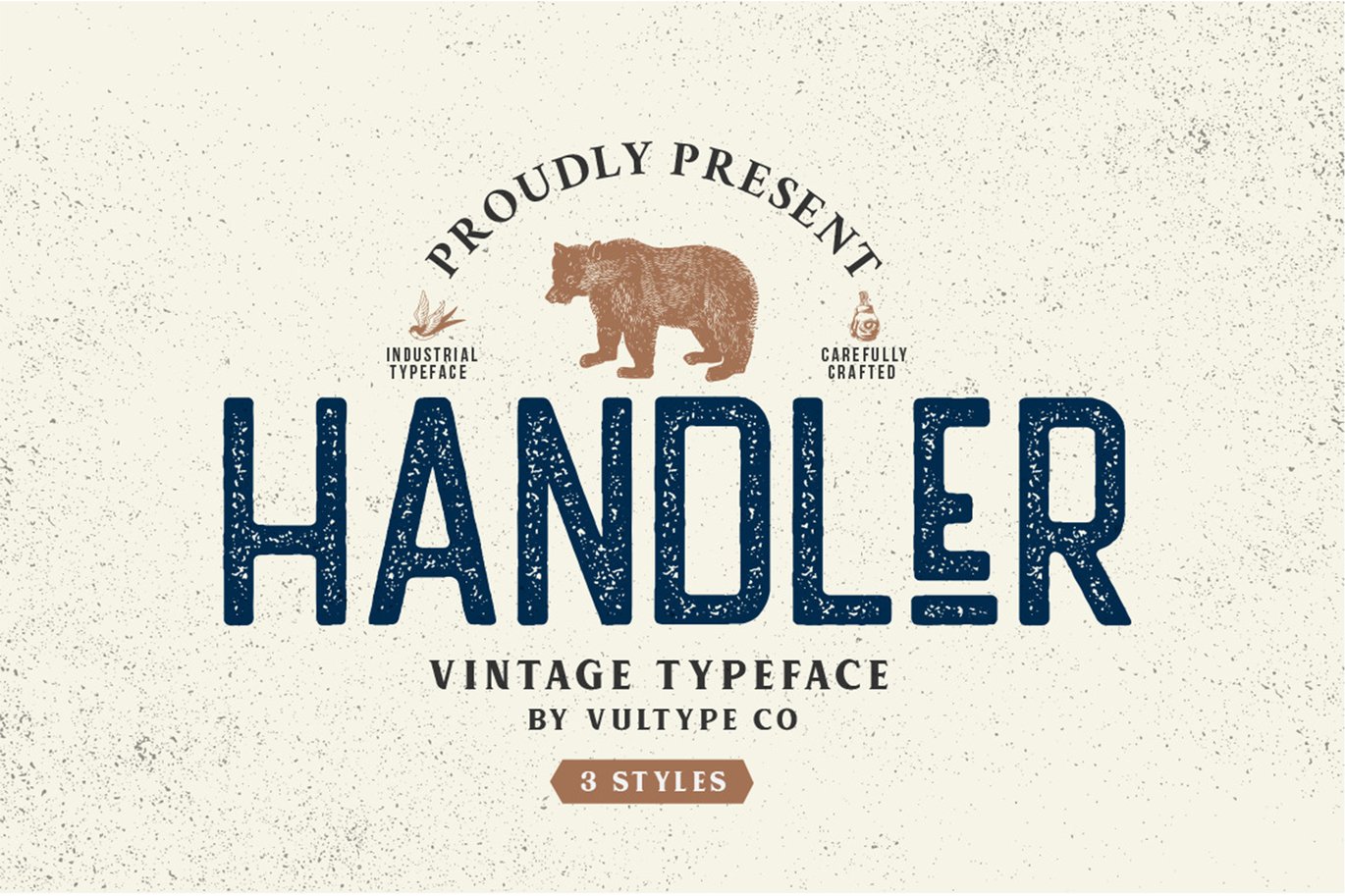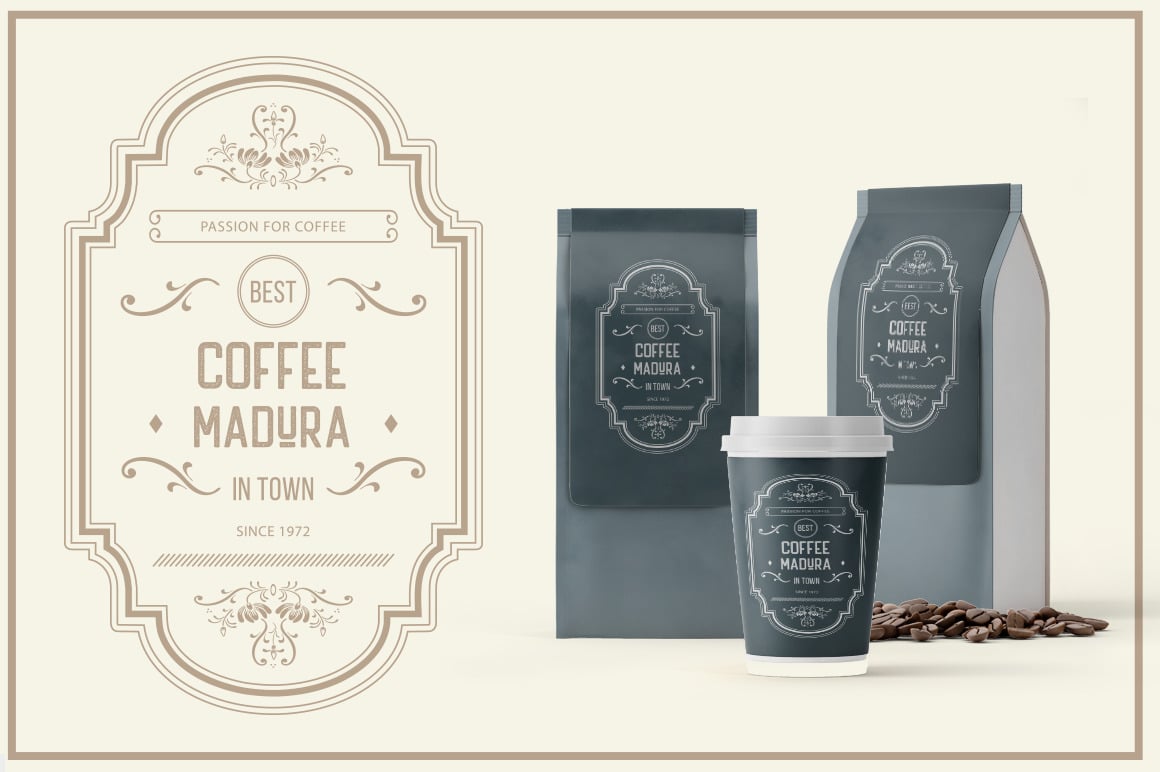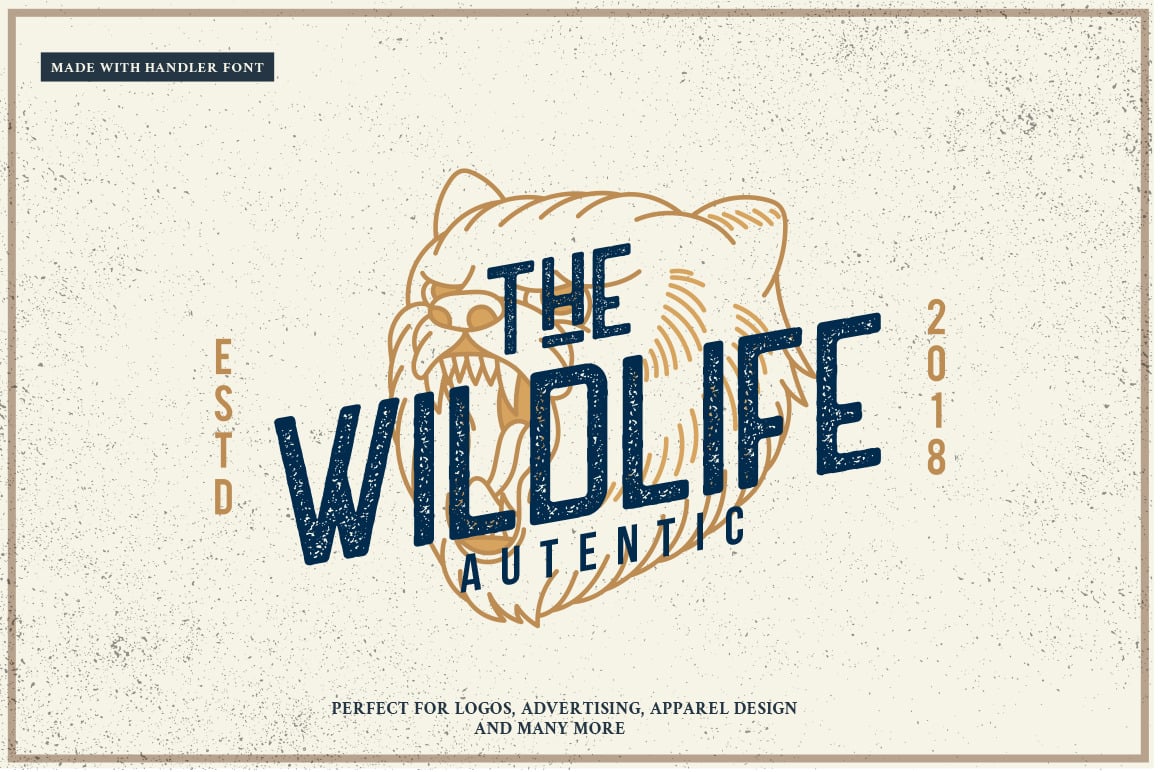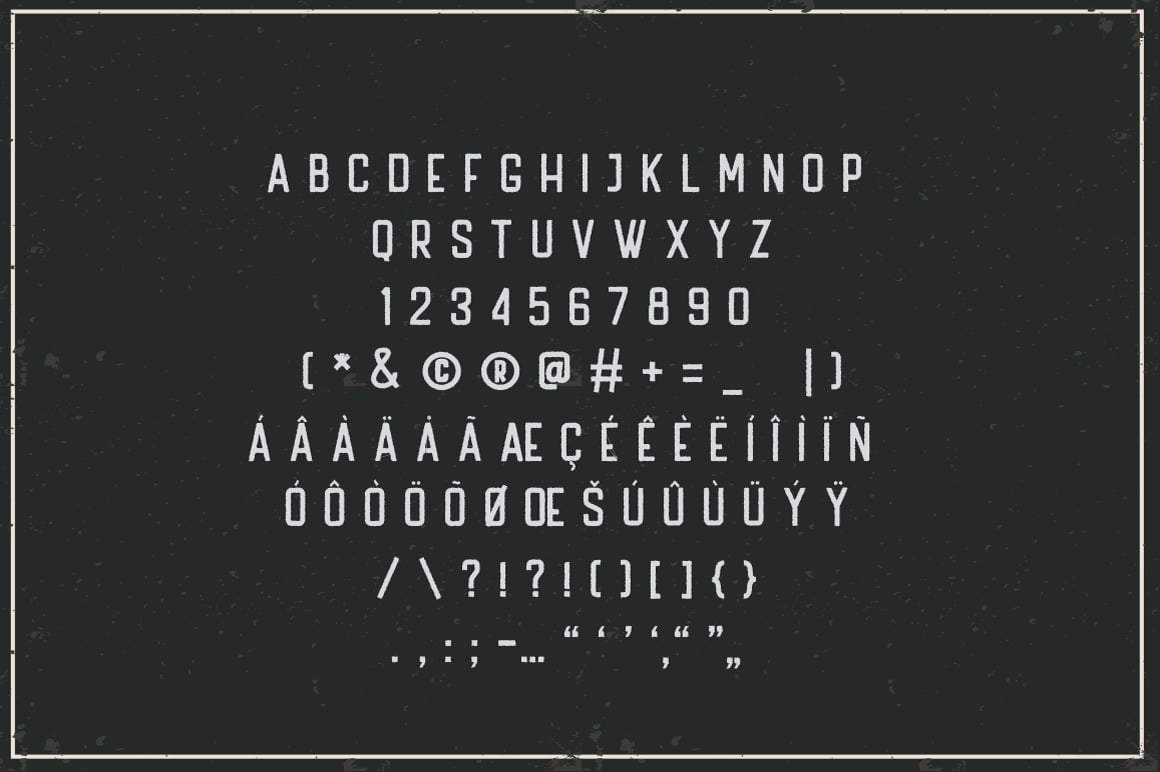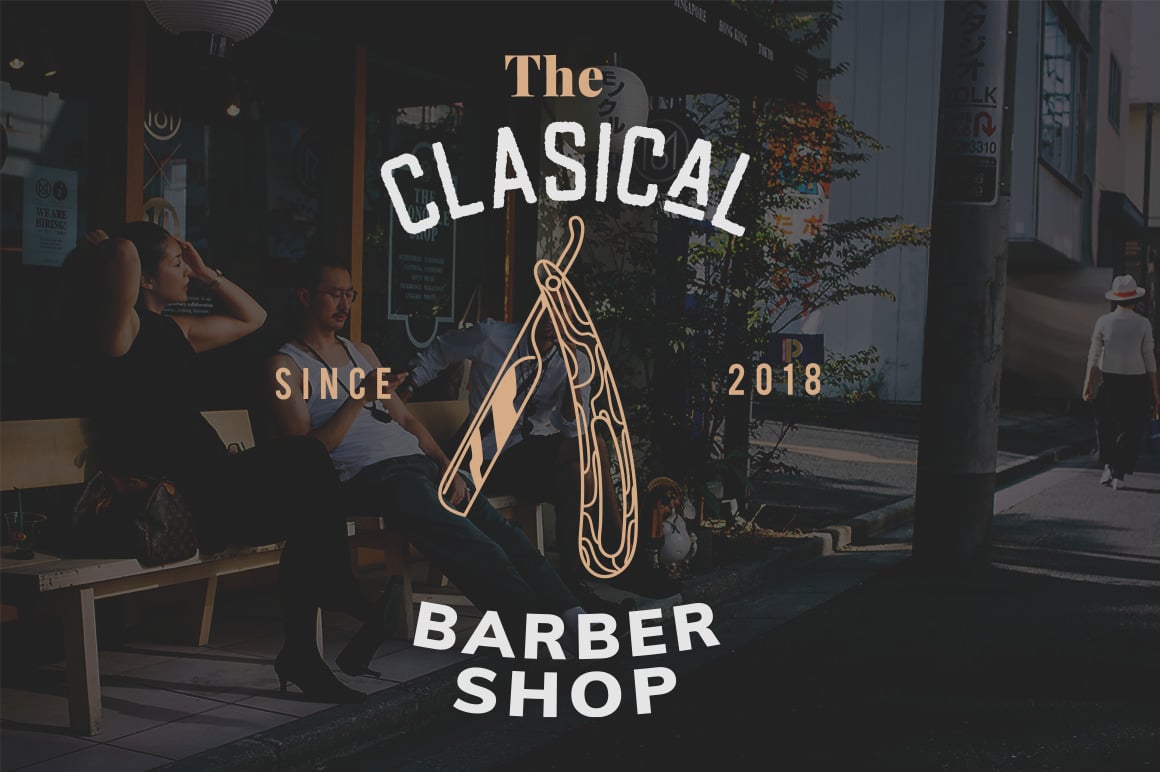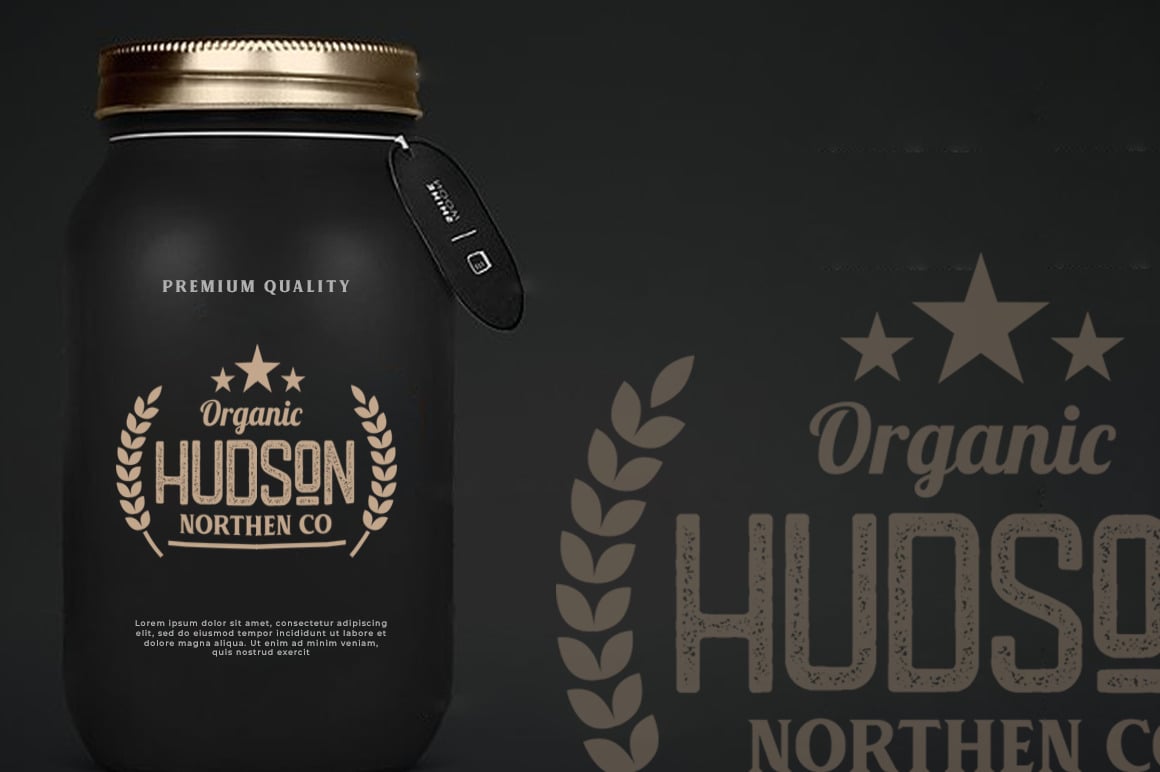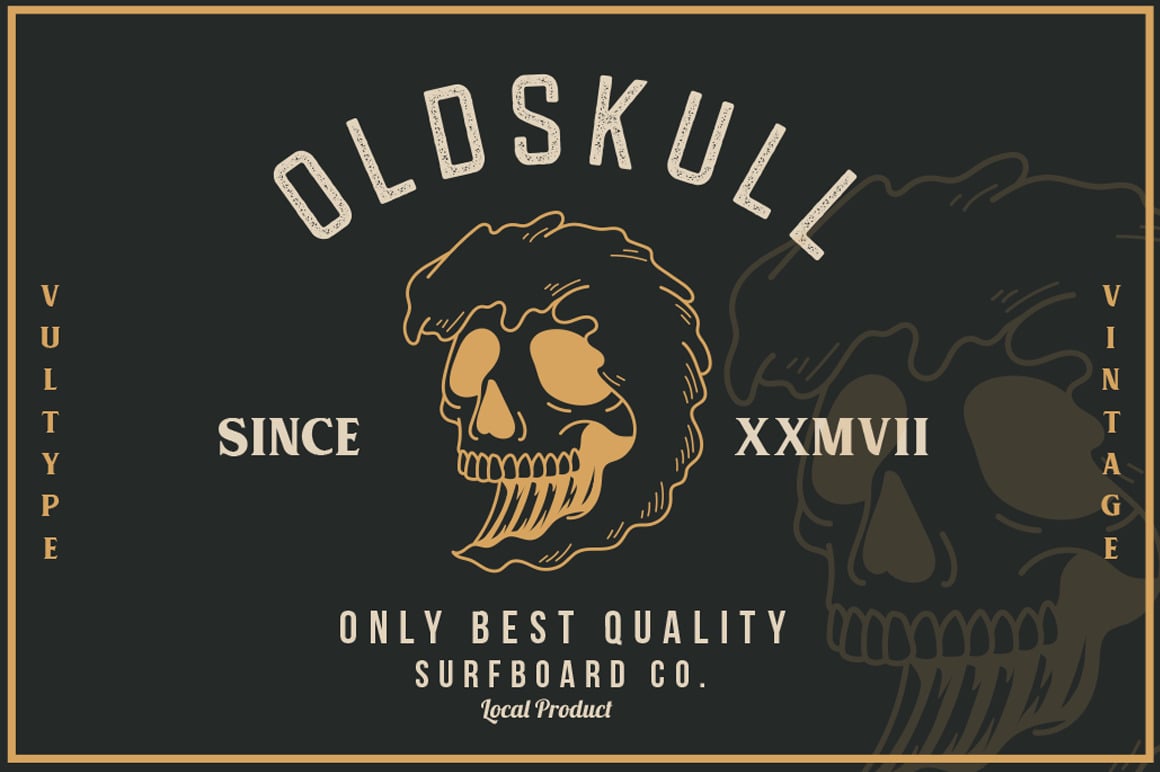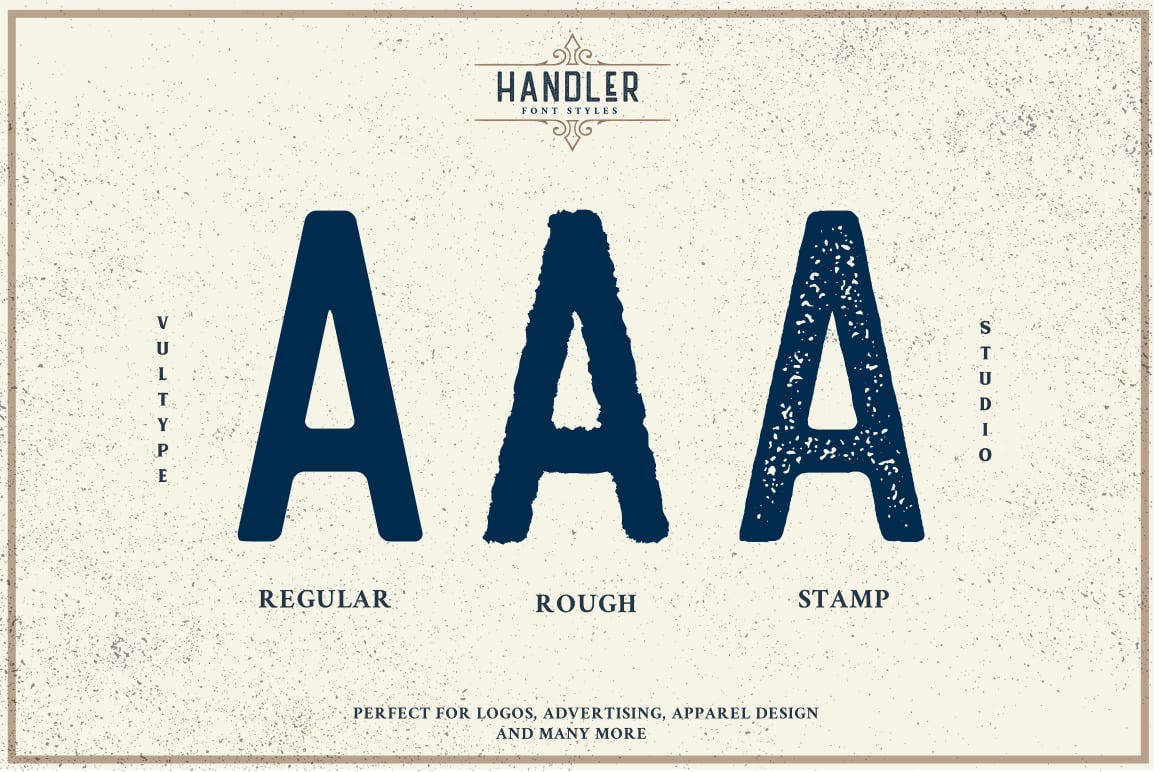
Handler Stamp Font
Handler is a vintage sans serif font including Textured, Rough & Clean version, suitable for your next creative project like suitable for art, modern envelope lettering or book design, craft design, any Branding project, pop vintage designy.
- Handler Regular
- Handler Stamp
- Handler Rough